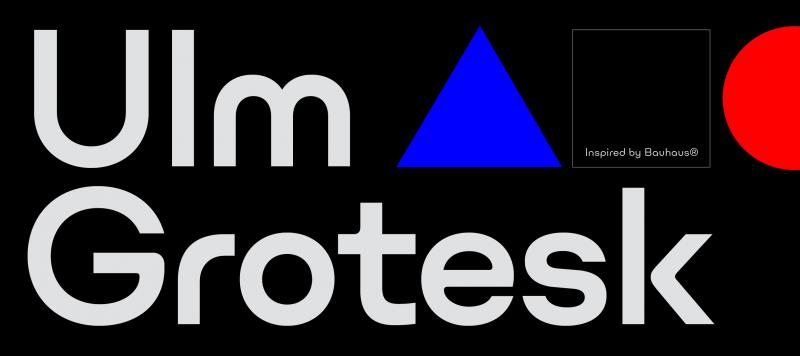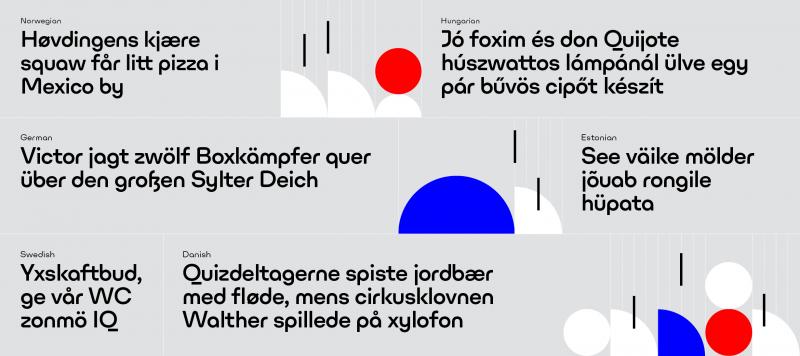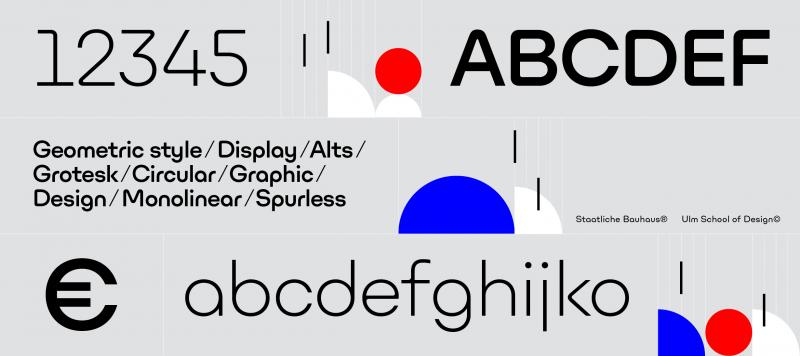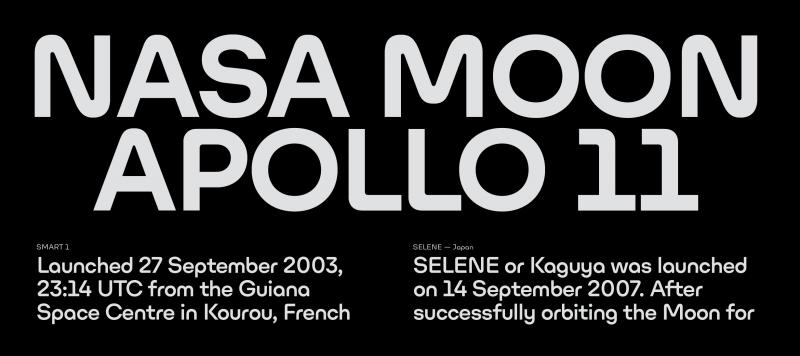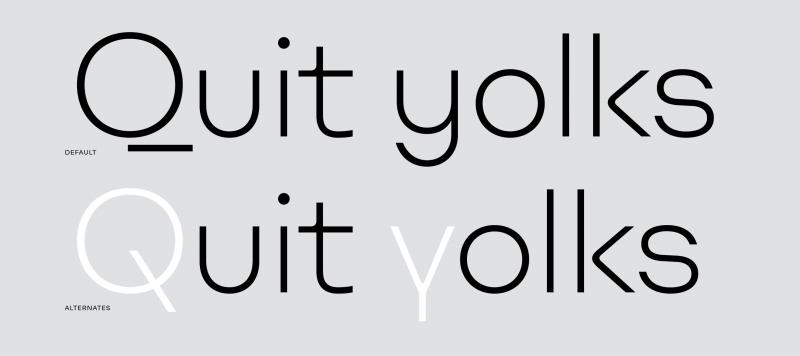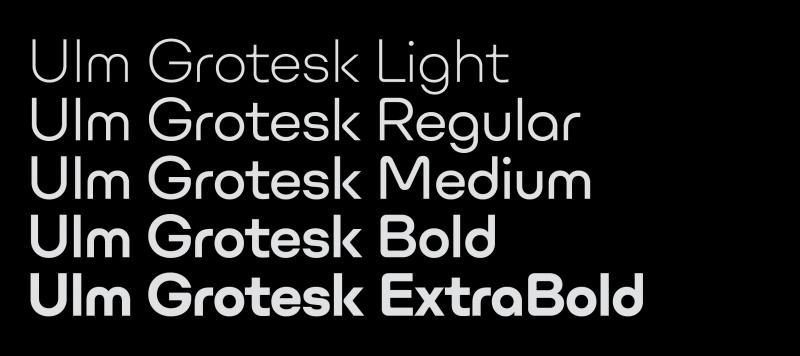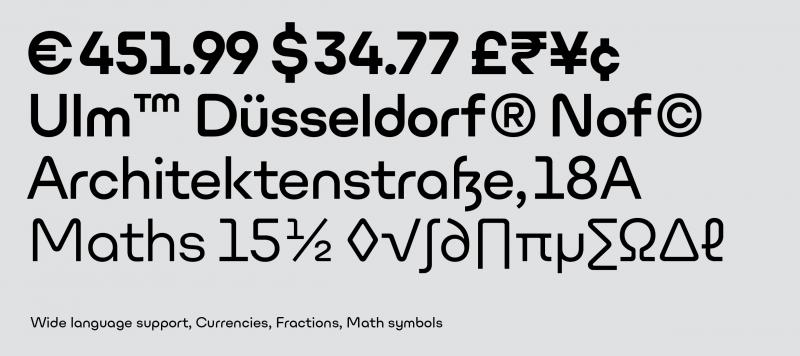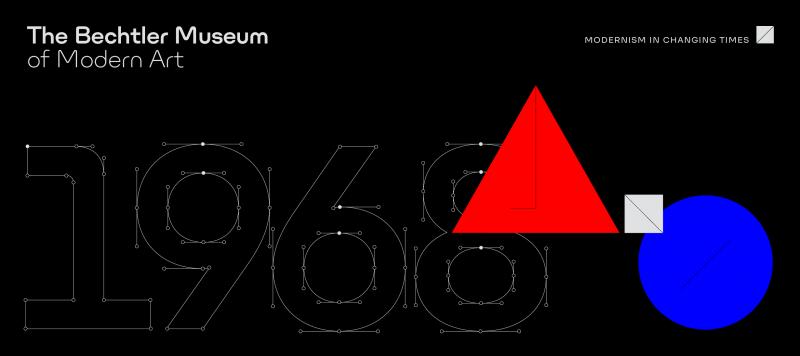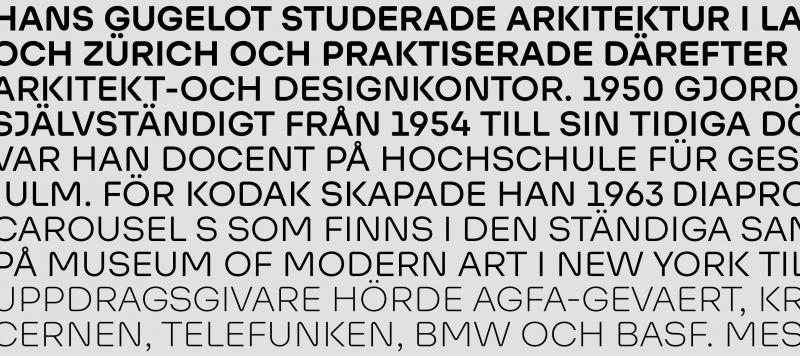
Ulm Grotesk is a family of geometric-style fonts for use at display sizes. Its design is so simplified that it feels quite futuristic. There are five weights on offer, ranging from Light to Extra Bold. The characters have been drawn with optically-monolinear strokes. The capital letters contain quite a lot of character; some of them are markant, too. The ‘J’, for instance, is very wide. The fonts’ default ‘Q’ separates the ‘O’ stroke from the tail visibly; a more traditional-looking ‘Q’ is available as an alternate. The forms of the capital ‘A’, ‘V’, ‘W’, and ‘Y’ are reminiscent of the ‘worm logo’ that was used by NASA in the 1970s and ’80s. The lowercase ‘m’, ‘n’, ‘r’, and ‘u’ are spurless. The high-modernist geometric style of the ‘a’, ‘b’, and ‘c’ call Paul Rand’s iconic ABC logo to mind. The tail of the ‘j’ is a simple, vertical stroke. The ‘g’ and the ‘y’ each have wide, sweeping tails – although, there is an alternate ‘y’ available, with a straight-tailed descender. The fonts’ numerals are the same height as the capital letters. Ulm Grotesk is named after the German city of Ulm. In the 1950’s and ’60s, a famous West German design school operated there. The Ulm School of Design was hailed as a successor to the Bauhaus, and it set important impulses for international graphic and product design. These Ulm aftershocks were felt for the next several decades. The fonts are the work of the Paris-based type designer Ilya Naumoff.
| Available Style | Light, Regular, Medium, Bold, Extrabold |
| Classification | Display, Sans |